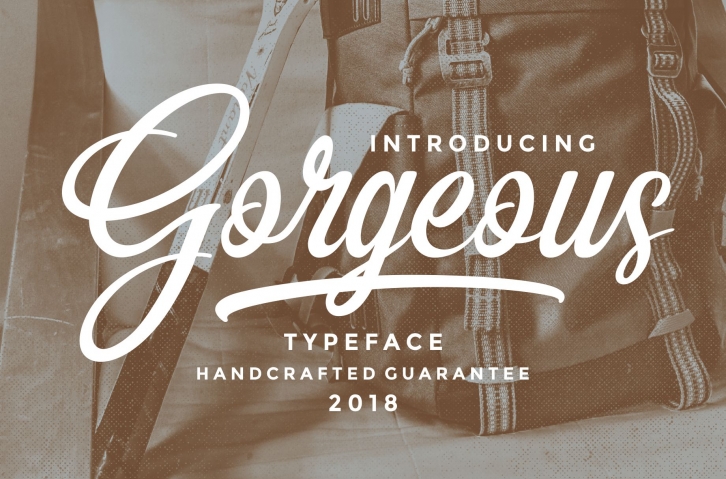
Gorgeous Script is a beautiful font that was designed by Ngene. It's a great choice for designers and creatives who need such a font. It was released on June 8, 2018 and the file size is 14.21 MB. Gorgeous Script may give a more youthful, expressive and casual look to your project. It is a very beautiful, refined, elegant, and high-quality font.